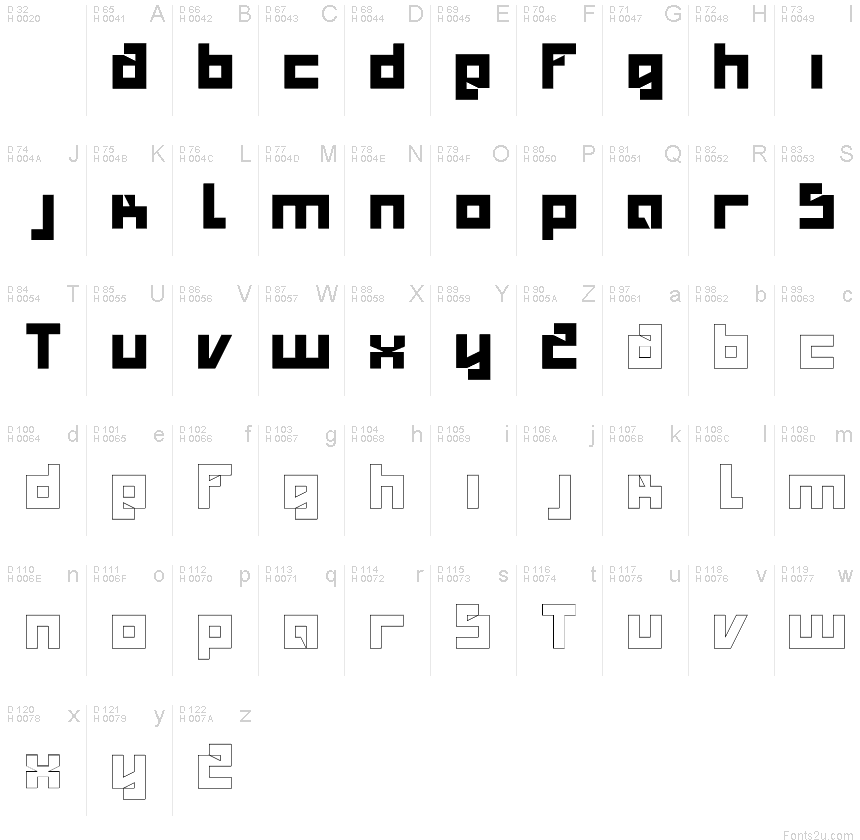
Salty
Very simple font created back in 1999.
Looks best in uppercase (filled).
Individual letter kerning probably necessary if you're a professional user.
Frode Nordbø 1999